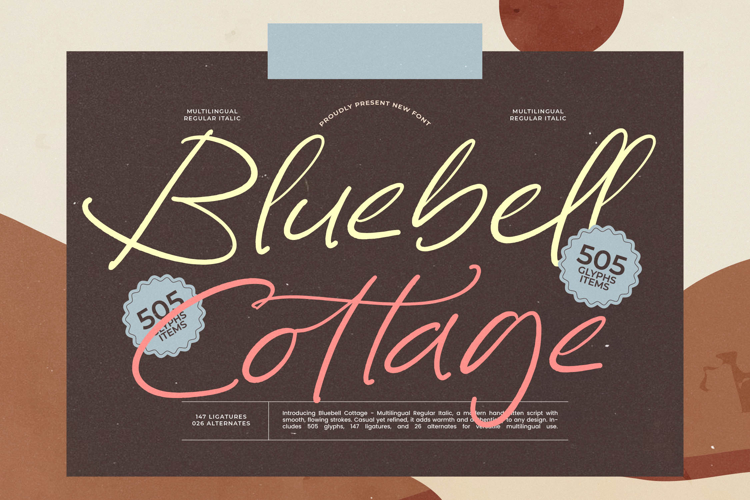
Bluebell Cottage - Modern Handwritten Font
Capture the authenticity of genuine handcrafted design. The Bluebell Cottage - Modern Handwritten Font delivers unparalleled fluidity and organic motion, transforming simple text into a personalized statement. This high-quality script merges casual elegance with sophisticated readability, making it the premier choice for designers seeking a truly unique and heartfelt aesthetic. Its dynamic, flowing strokes suggest effortless creativity and meticulous detail, setting the stage for impactful visual communication.